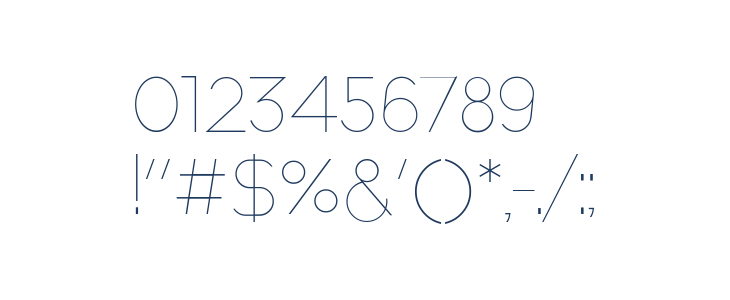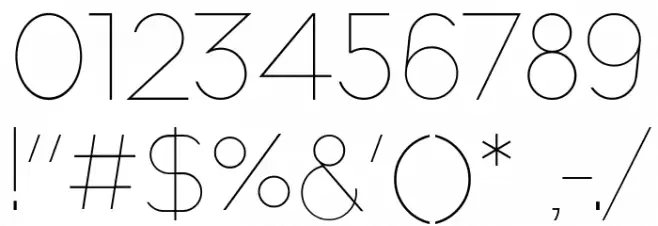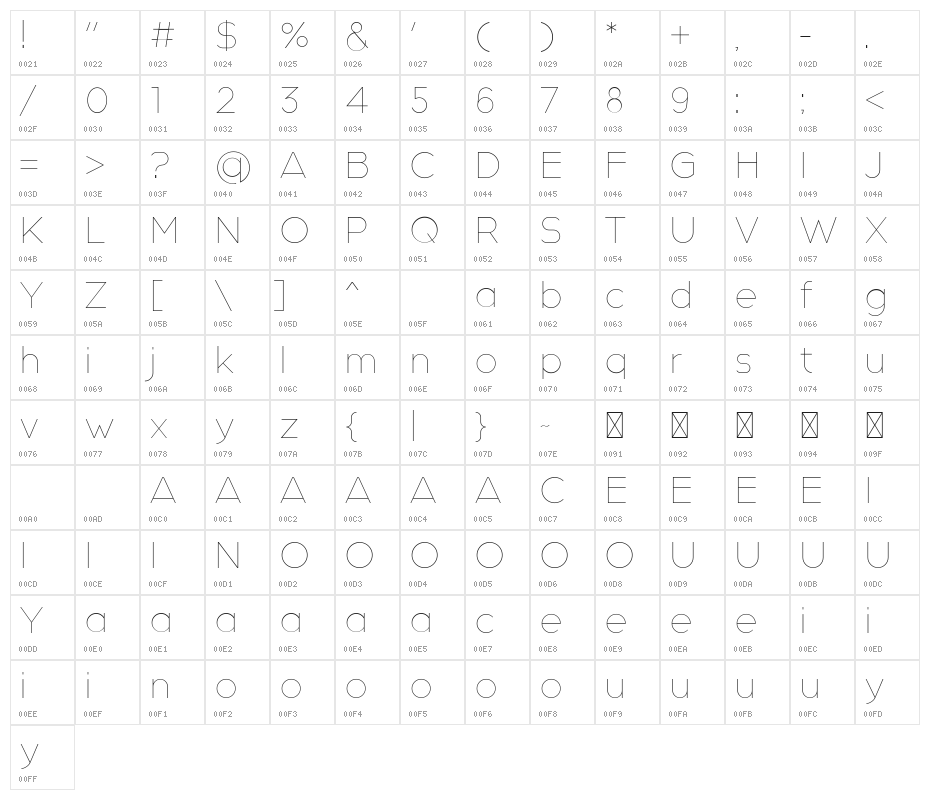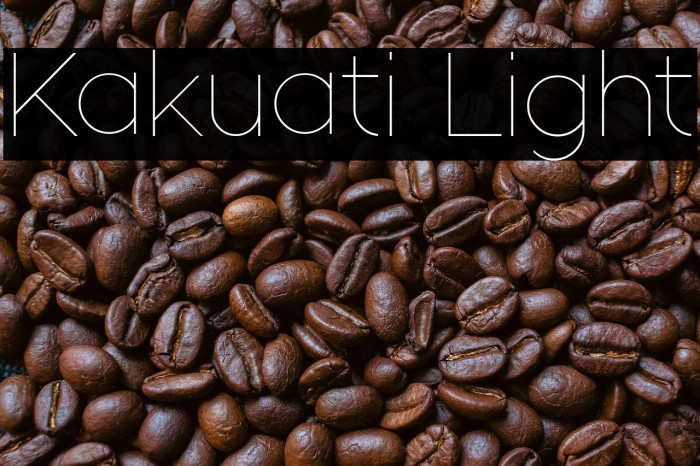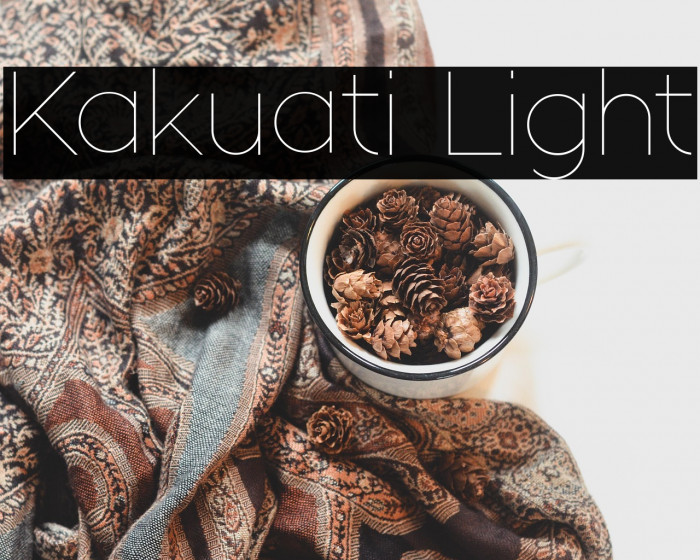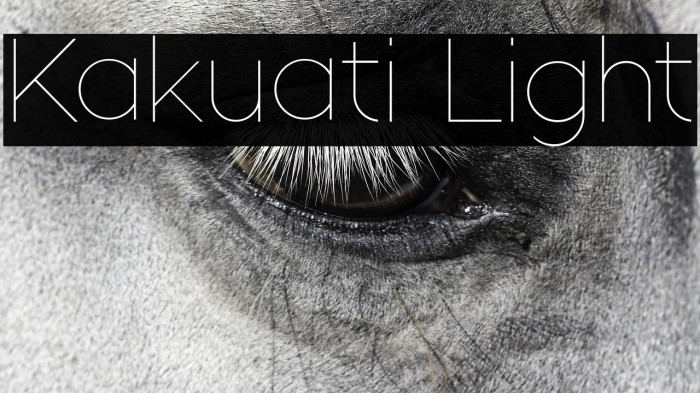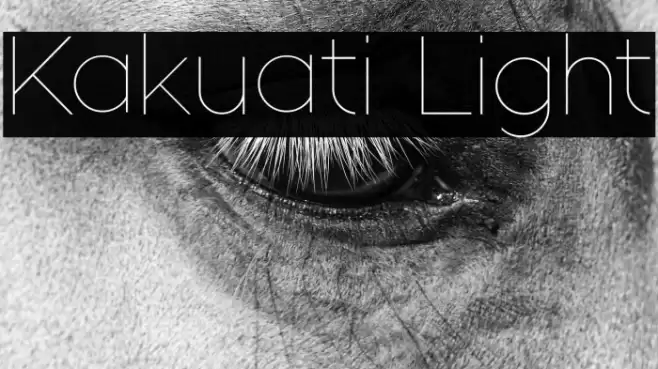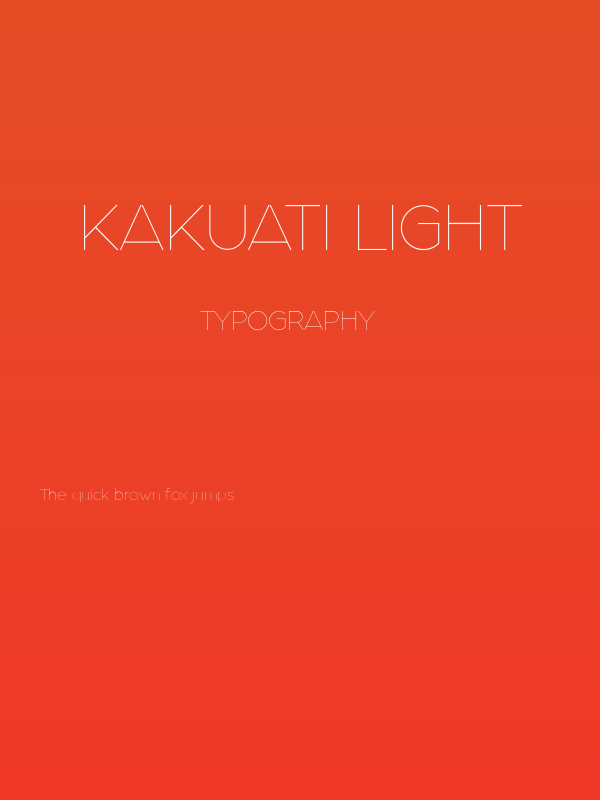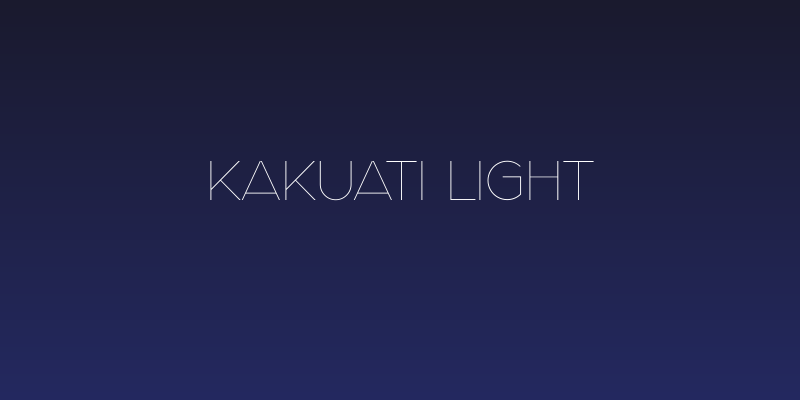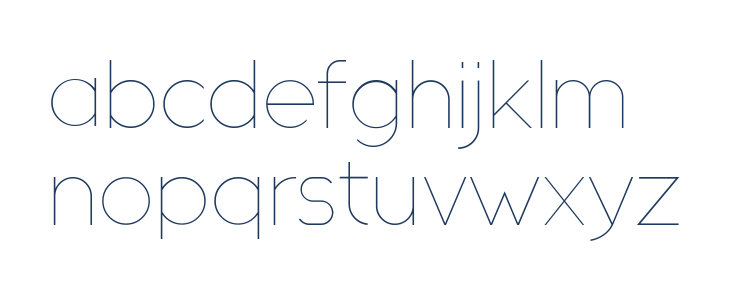
Kakuati Light Font
Kakuati Light Description
This font features a sleek and modern design with clean, geometric lines. The characters are uniformly thin, giving it a light and airy appearance. The uppercase and lowercase letters are well-proportioned, maintaining a consistent style throughout. The numerals are clear and easy to read, while the special characters blend seamlessly with the overall aesthetic. This font's minimalist approach makes it versatile for various design applications.
| Proposed Projects | Ideal for modern branding, minimalist posters, tech-related designs, and clean website headers. |